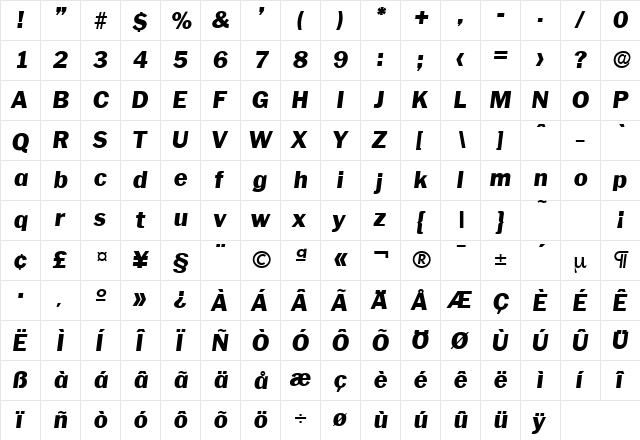
Plymouth-Serial-Heavy RegularItalic
Design Context for Plymouth-Serial-Heavy Typeface
Plymouth-Serial-Heavy is a composed and adaptable typeface that performs quietly and consistently across a wide range of design contexts. The slanted form adds forward momentum and visual energy.
Pro Tip: Use Plymouth-Serial-Heavy for emphasis, pull quotes, and subheadings where its slanted energy can add rhythm to the layout.